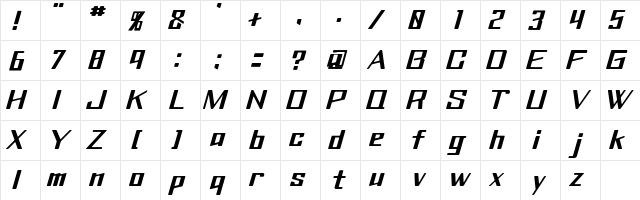
Candy Medium
Design Context for Candy Typeface
Candy is a composed and adaptable typeface that performs quietly and consistently across a wide range of design contexts.